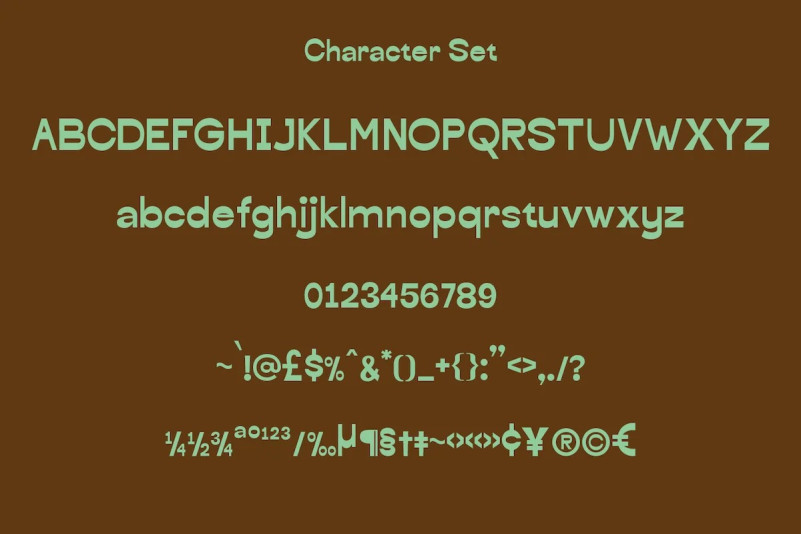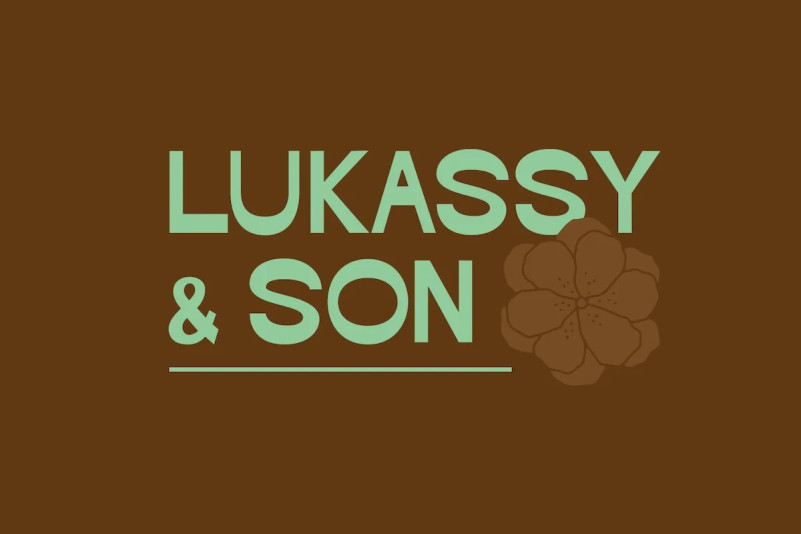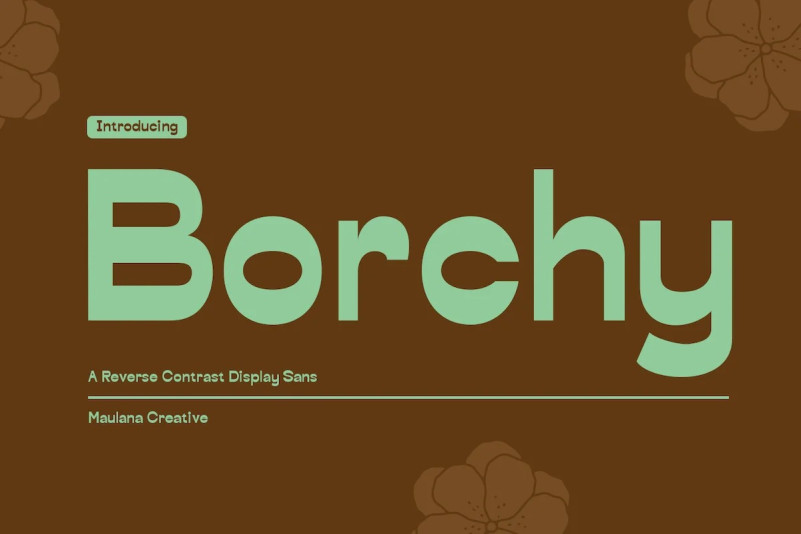
Borchy Font
Borchy Sans Serif Font is a display sans with reverse contrast font. With medium low contrast stroke, fun character with a bit of ligatures and alternates. To give you an extra creative work. Borchy font support multilingual more than 100+ language. This font is good for logo design, Social media, Movie Titles, Books Titles, a short text even a long text letter and good for your secondary text font with sans or serif. Make a stunning work with Borchy font.